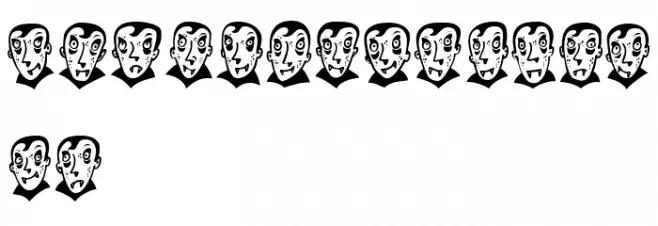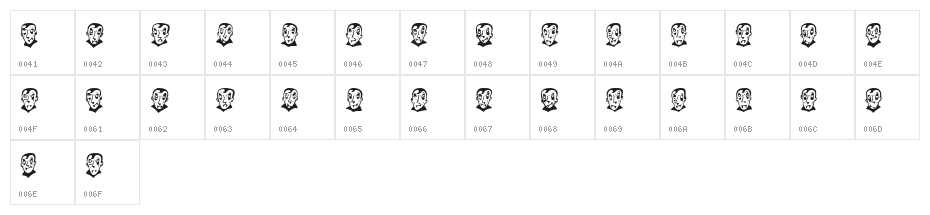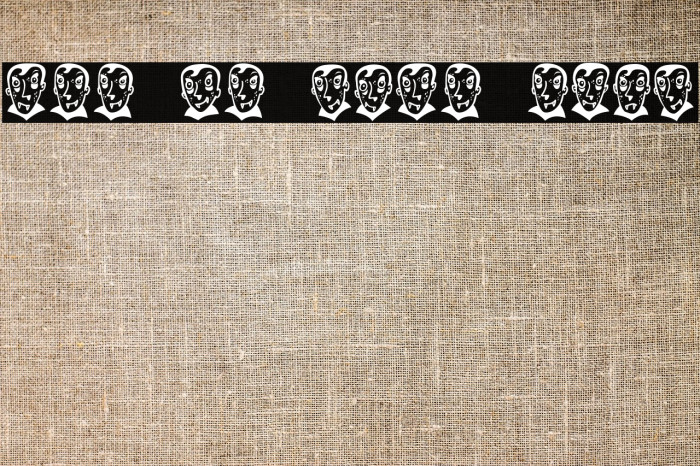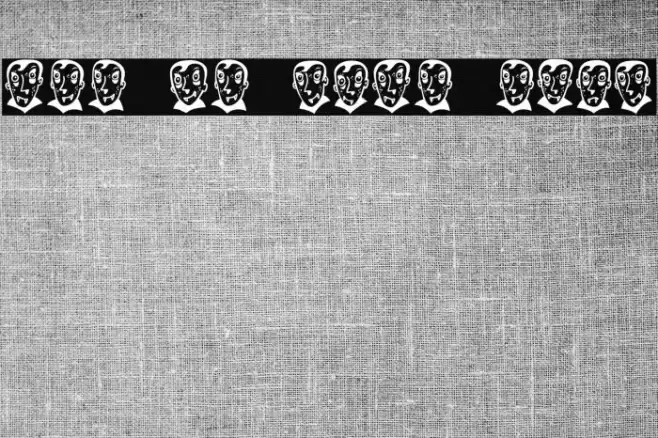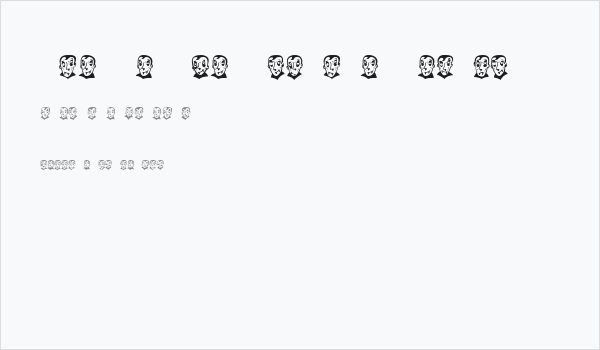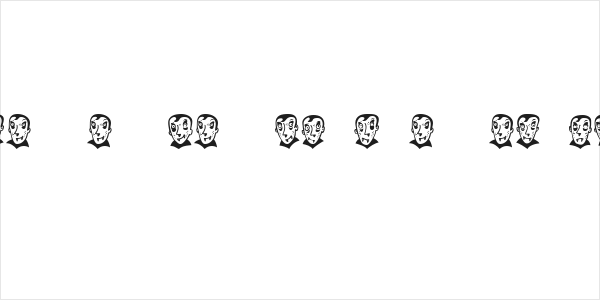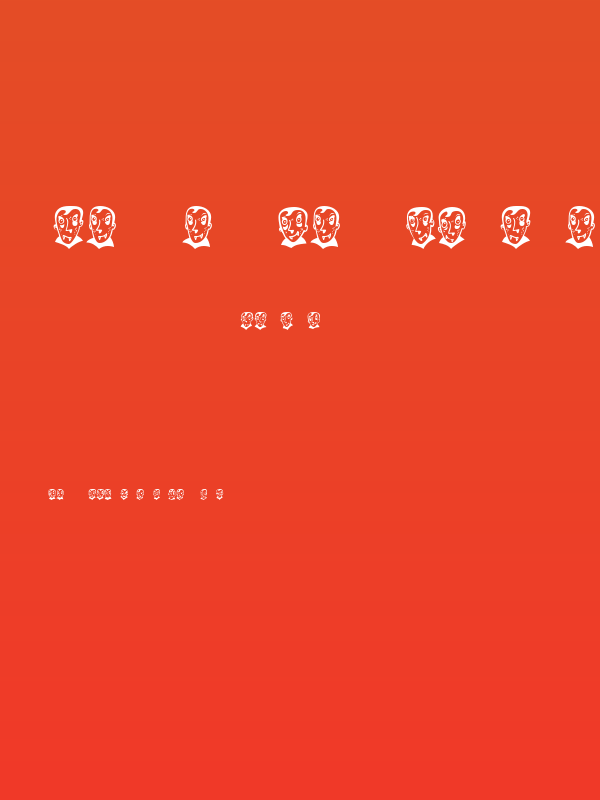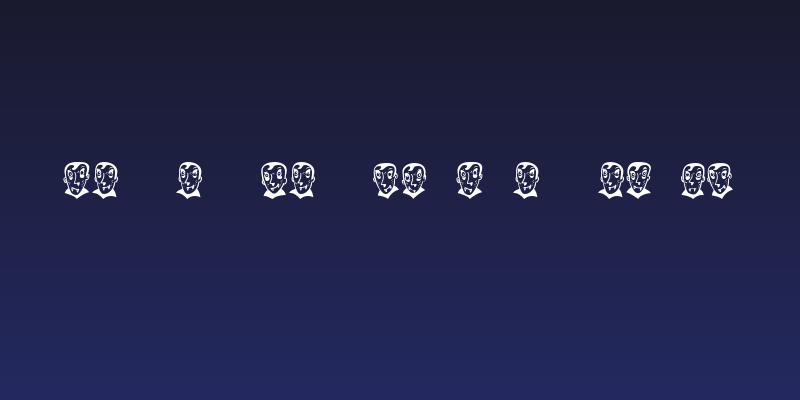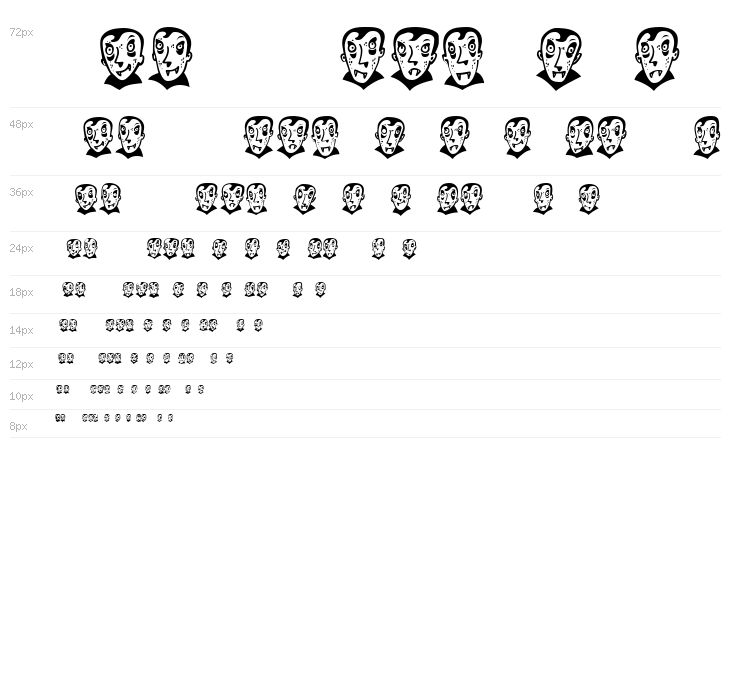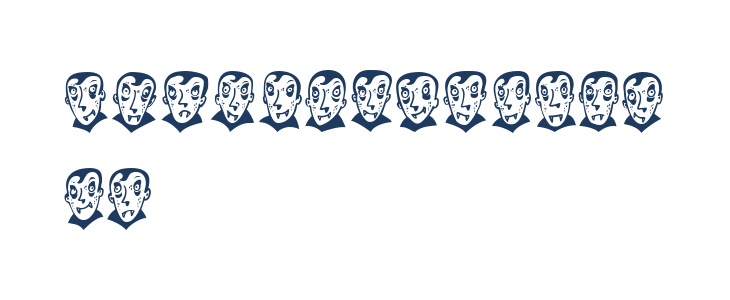
Pierre the Vampire Regular Font
This font features a whimsical and playful design, with each character represented by a cartoonish vampire face. The faces are expressive, with exaggerated features such as large eyes and fangs, giving the font a unique and humorous personality. The style is consistent across all characters, maintaining a cohesive look that is both entertaining and visually striking. The bold outlines and detailed facial expressions make it ideal for creative projects that require a touch of fun and fantasy.
Overall StyleWhimsical and Humorous
Use CaseLogos, Posters, Invitations
Proposed ProjectsIdeal for Halloween-themed designs, children's books, party invitations, and any project requiring a whimsical touch.